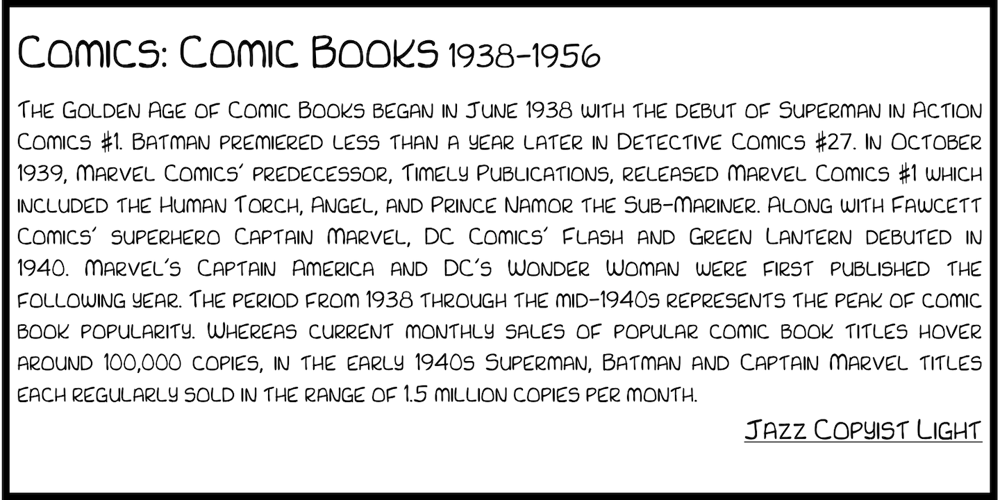
Jazz Copyist
Jazz Copyist font
Jazz Copyist Font Family was designed by Nor Eddine Bahha and published by NorFonts. Jazz Copyist contains 11 styles and family package options. Jazz Copyist fonts are handwritten fonts with a unique bounded shape, and can be used with any word processing program for text and display use, print and web projects, apps and ePub, Comic Books, graphic identities, branding, editorial, advertising, scrapbooking, cards and invitations … or even just for fun! Jazz Copyist can be used for Comics and Casual lettering.